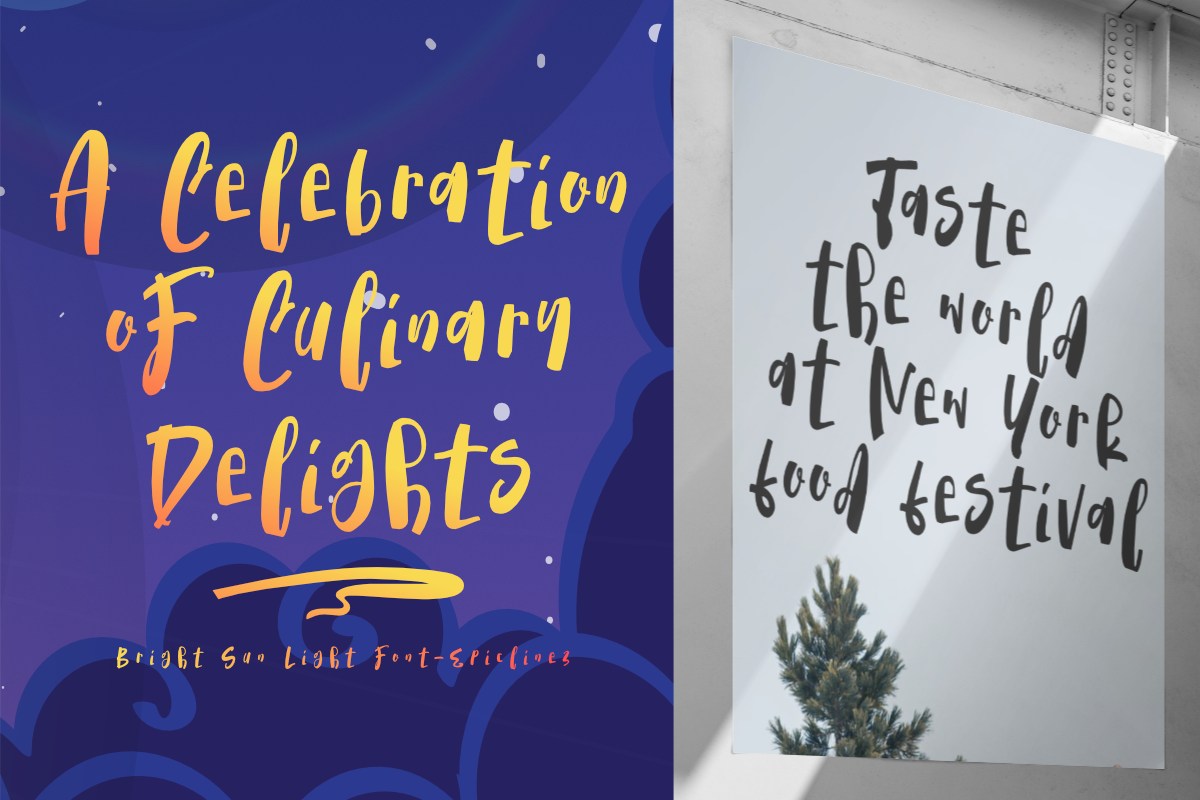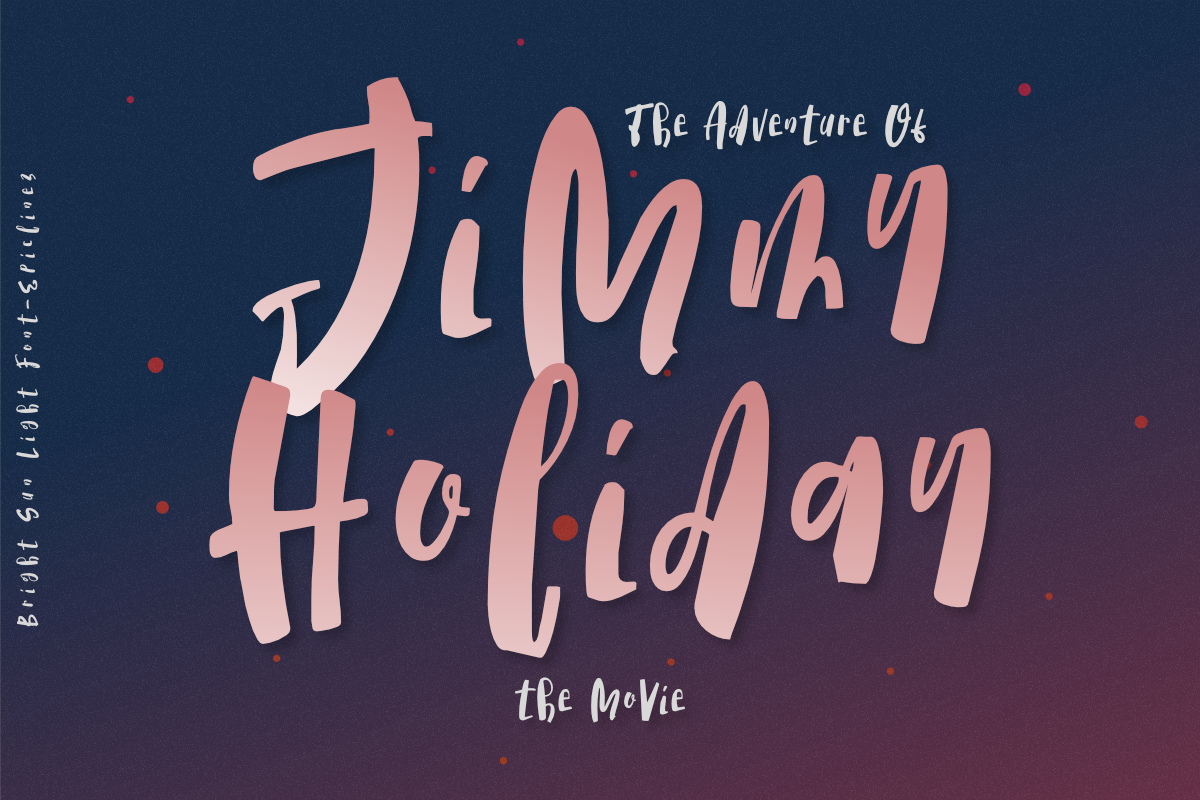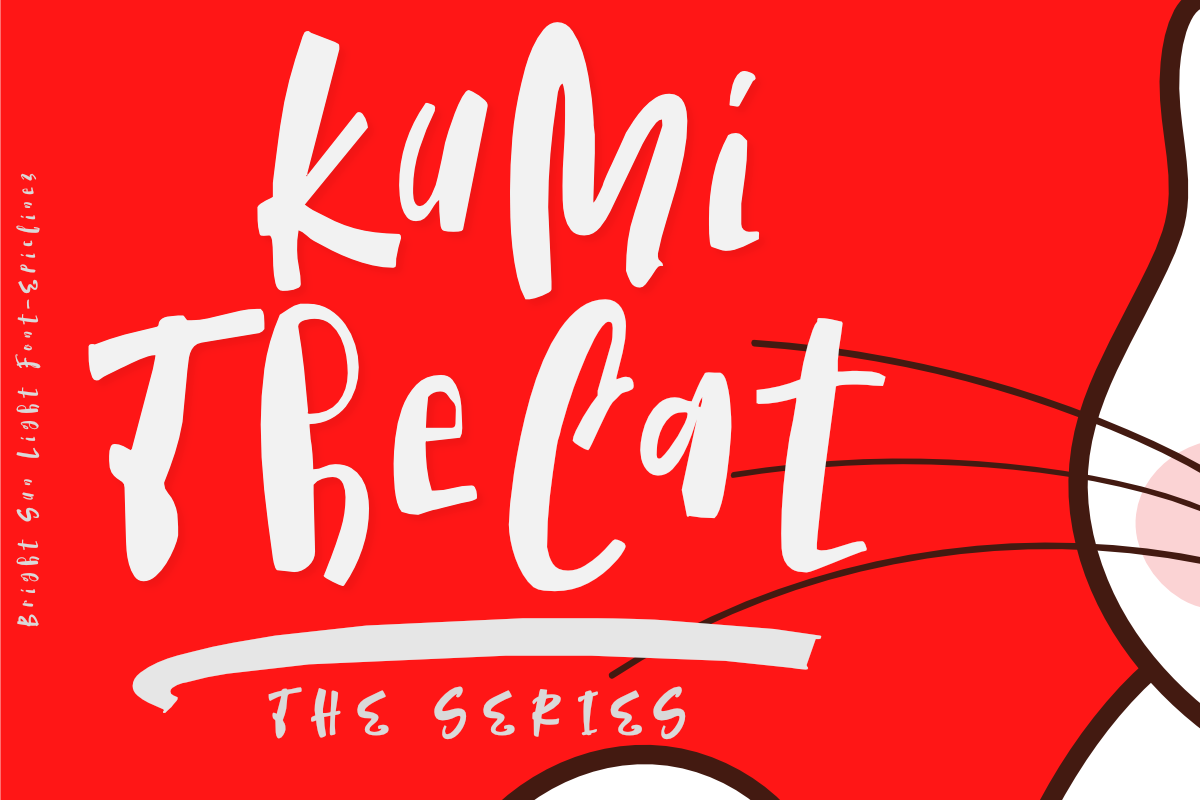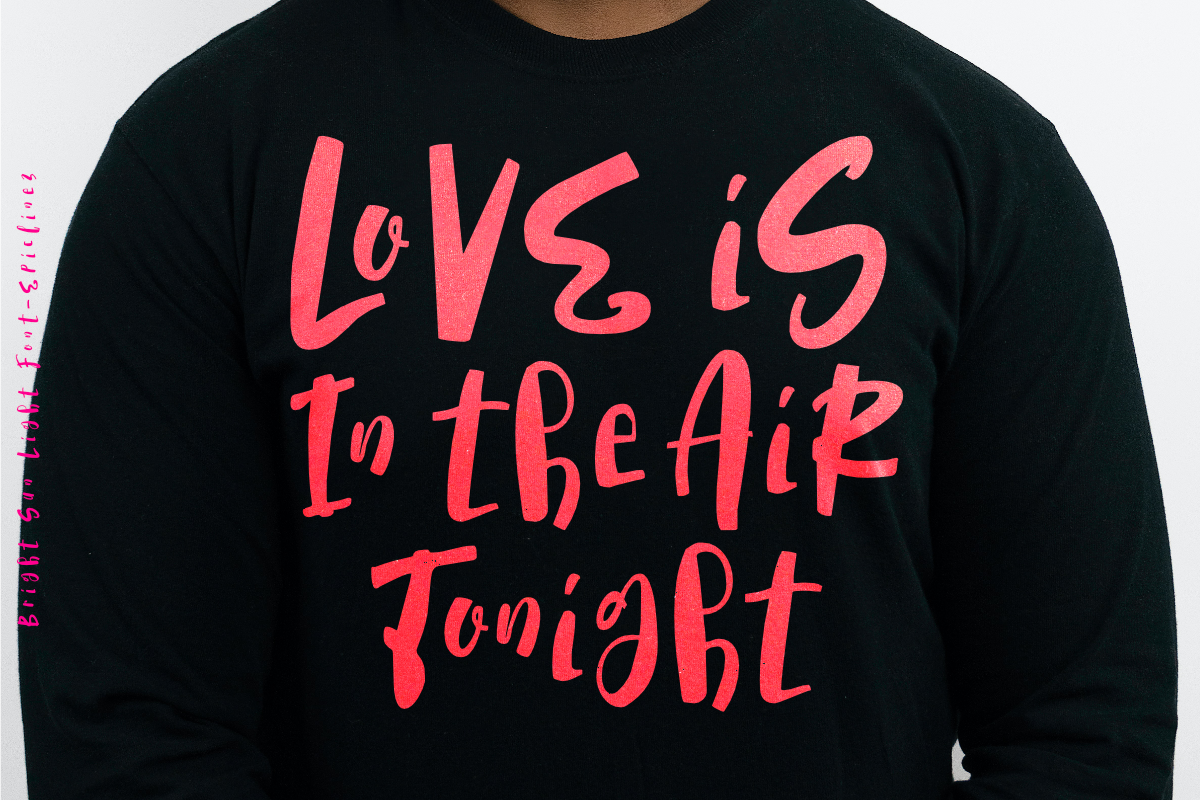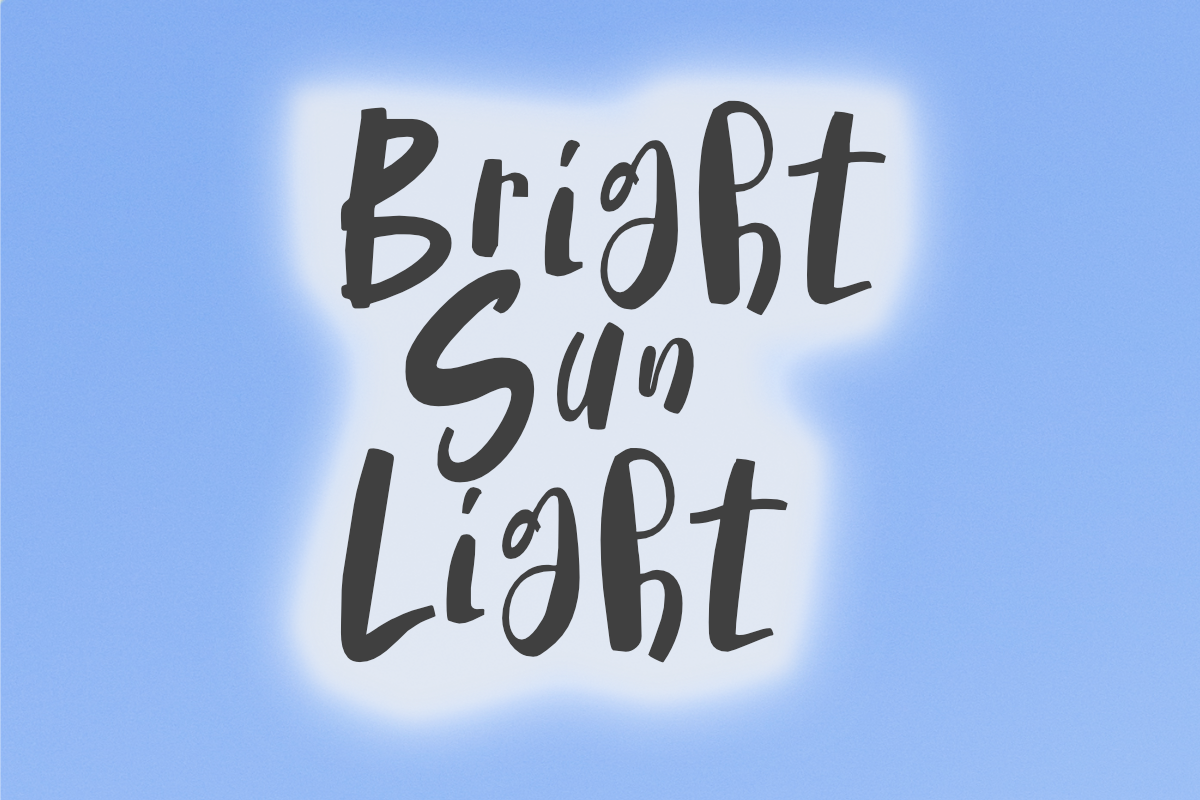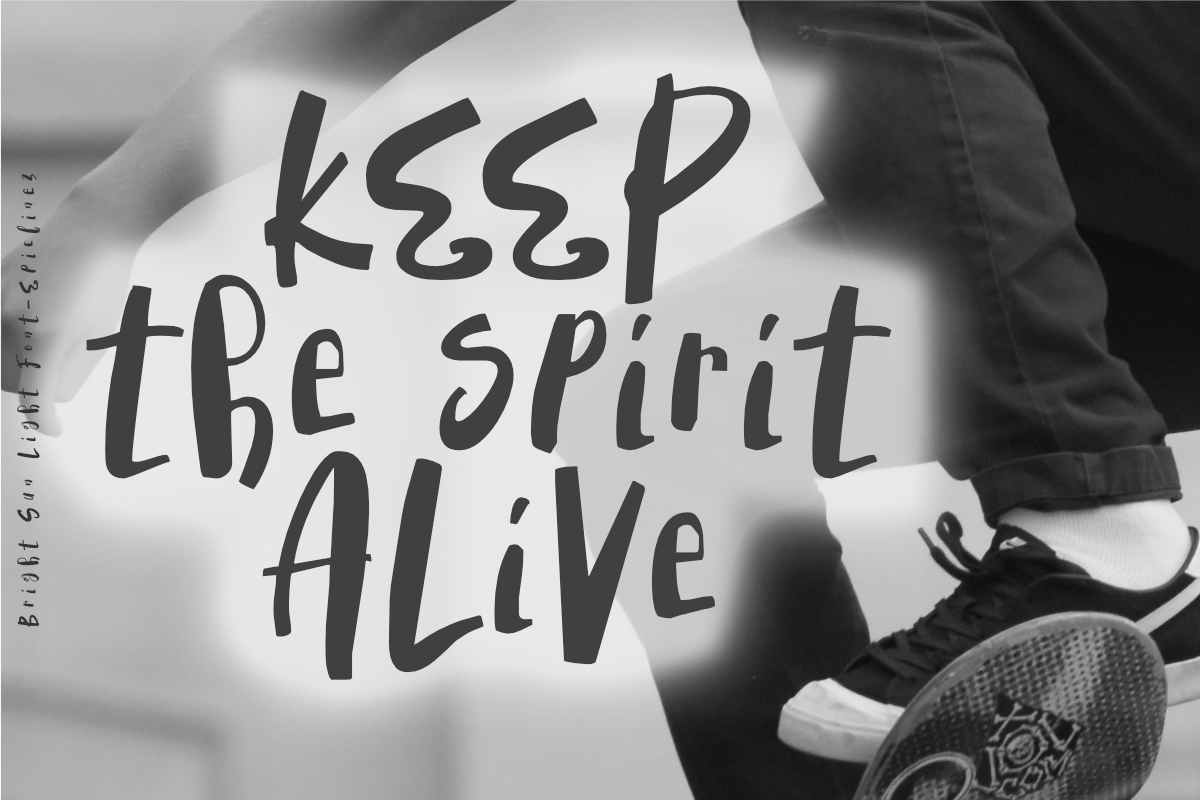
Bright Sun Light - A Fun Font
Bright Sunlight is a playful display font that is suitable for logos, product packaging, or something fun for your headlines. Get ready for some sunny vibes with Bright Sunlight!